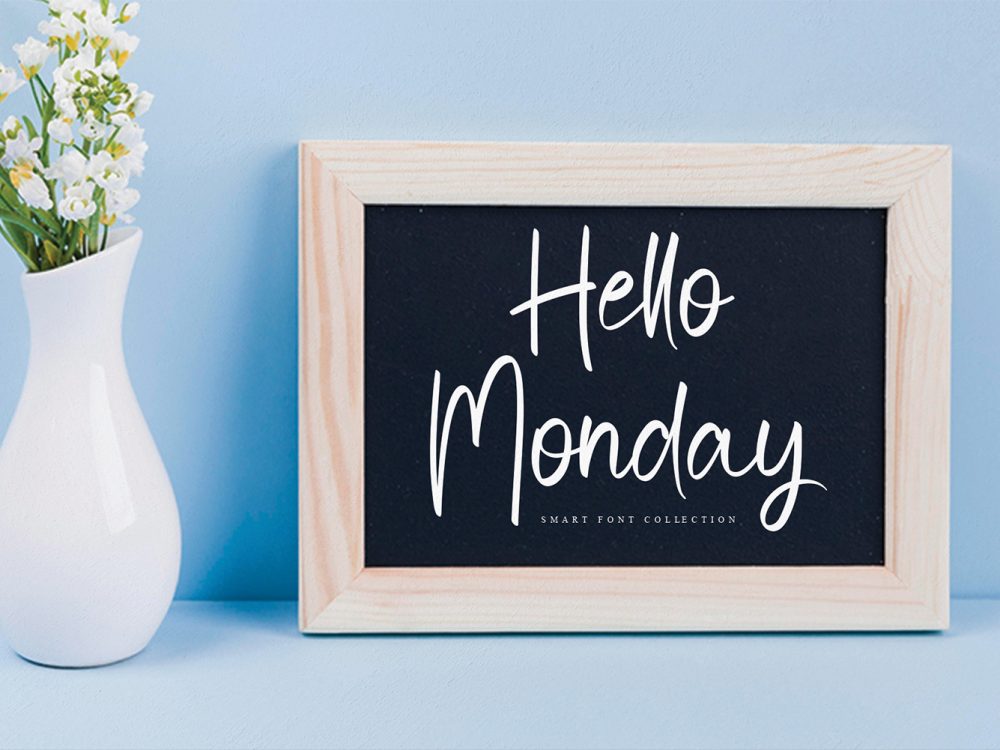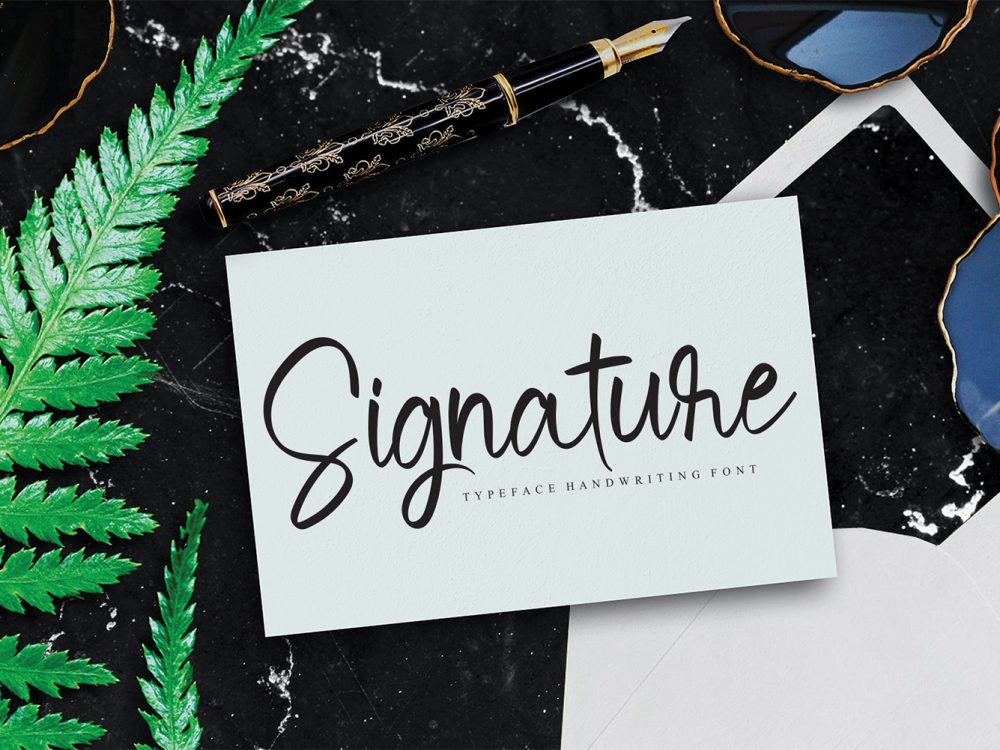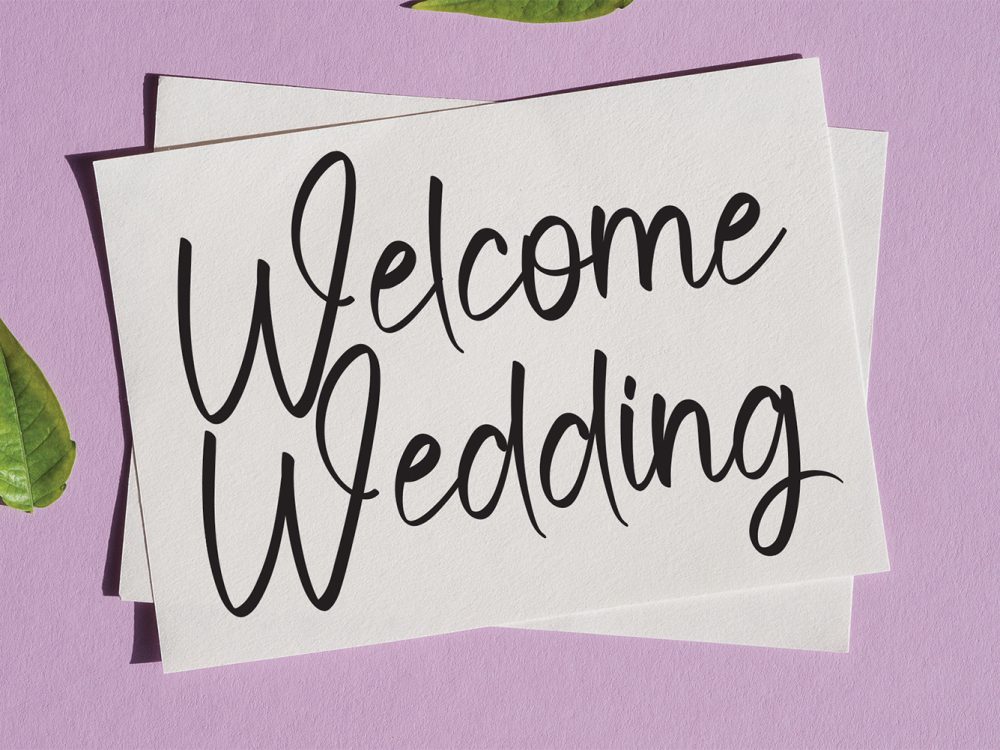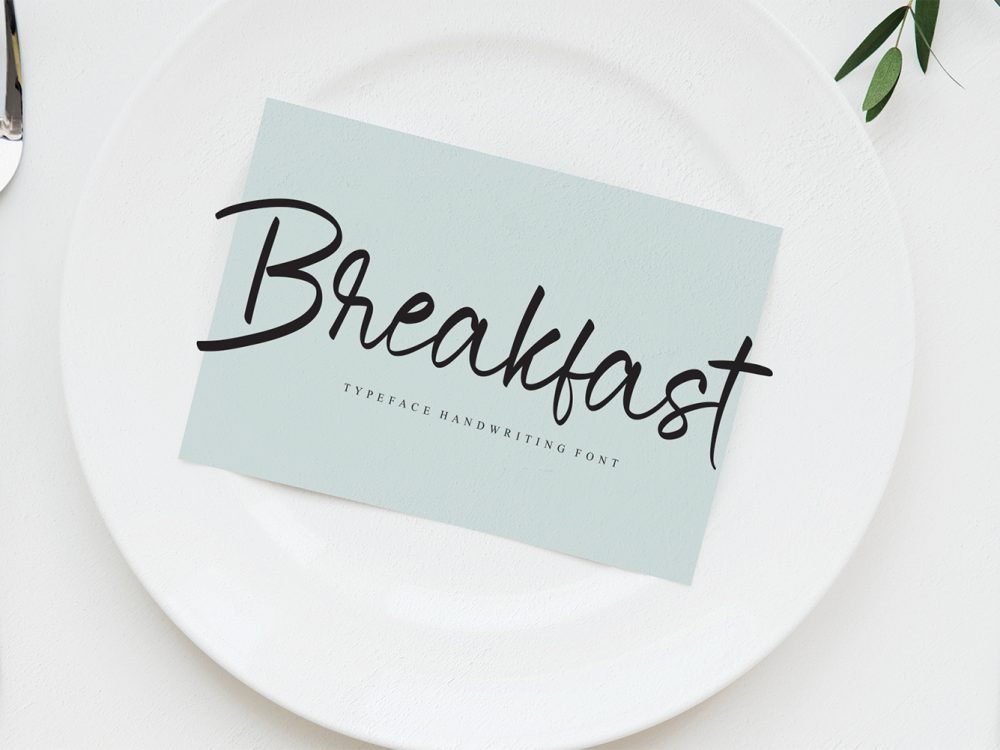
Groningen Free Font
Introducing Groningen Free Font, a stylish and flowing script font. Meticulously designed with intricate details, this font exudes sophistication. Regardless of the subject matter, Groningen stands as a valuable addition to your font collection, with the ability to elevate any creative endeavor to new heights. If you like it don’t forget to check out the full version.